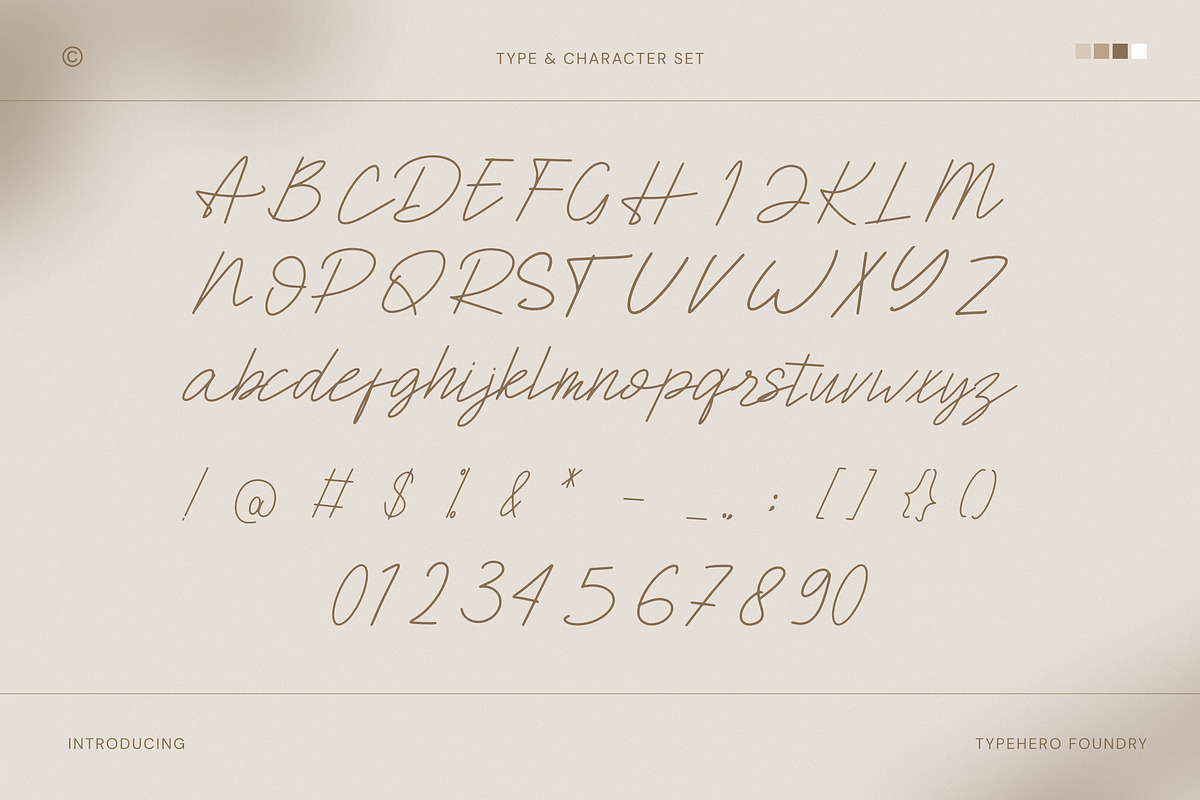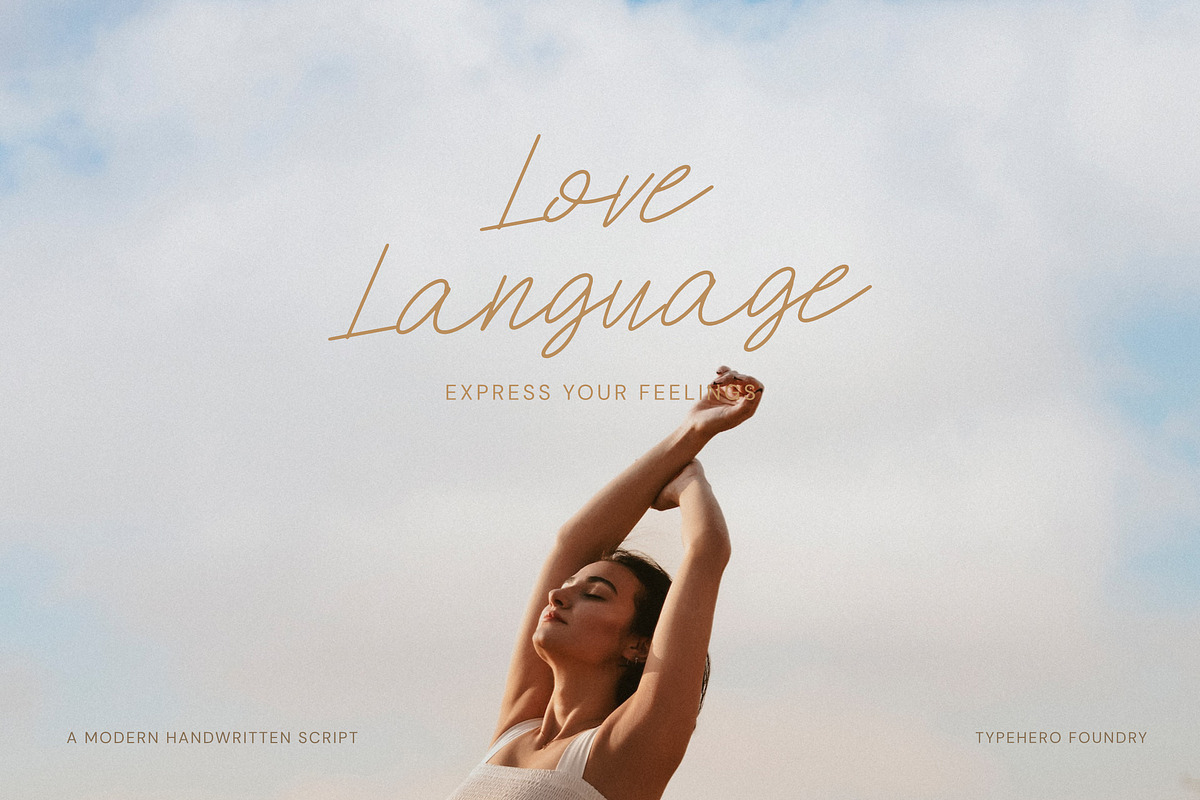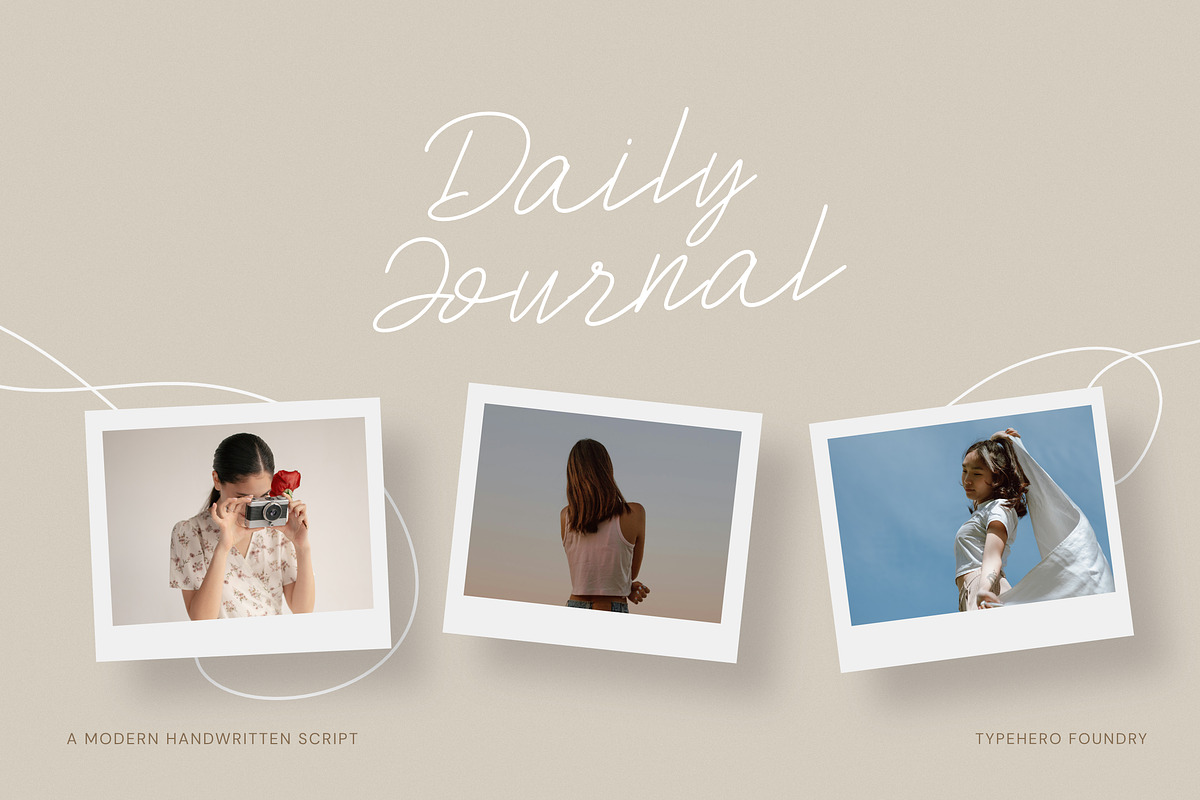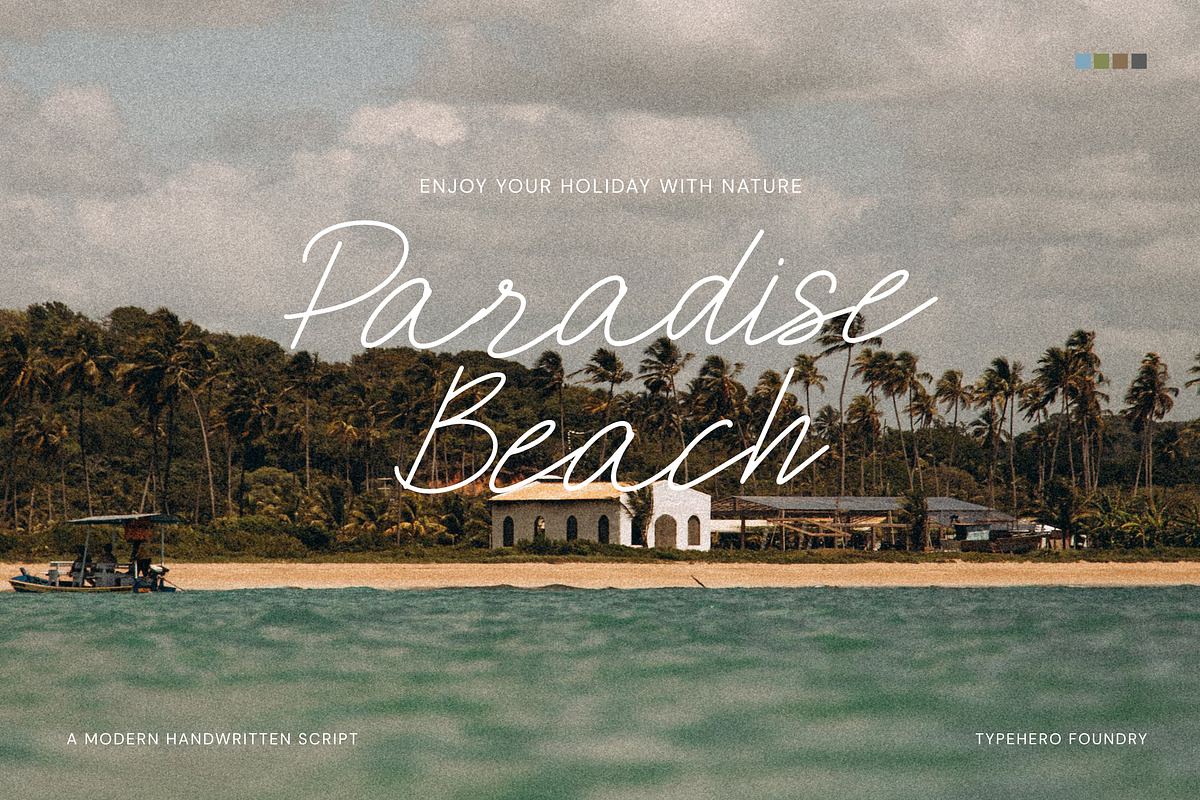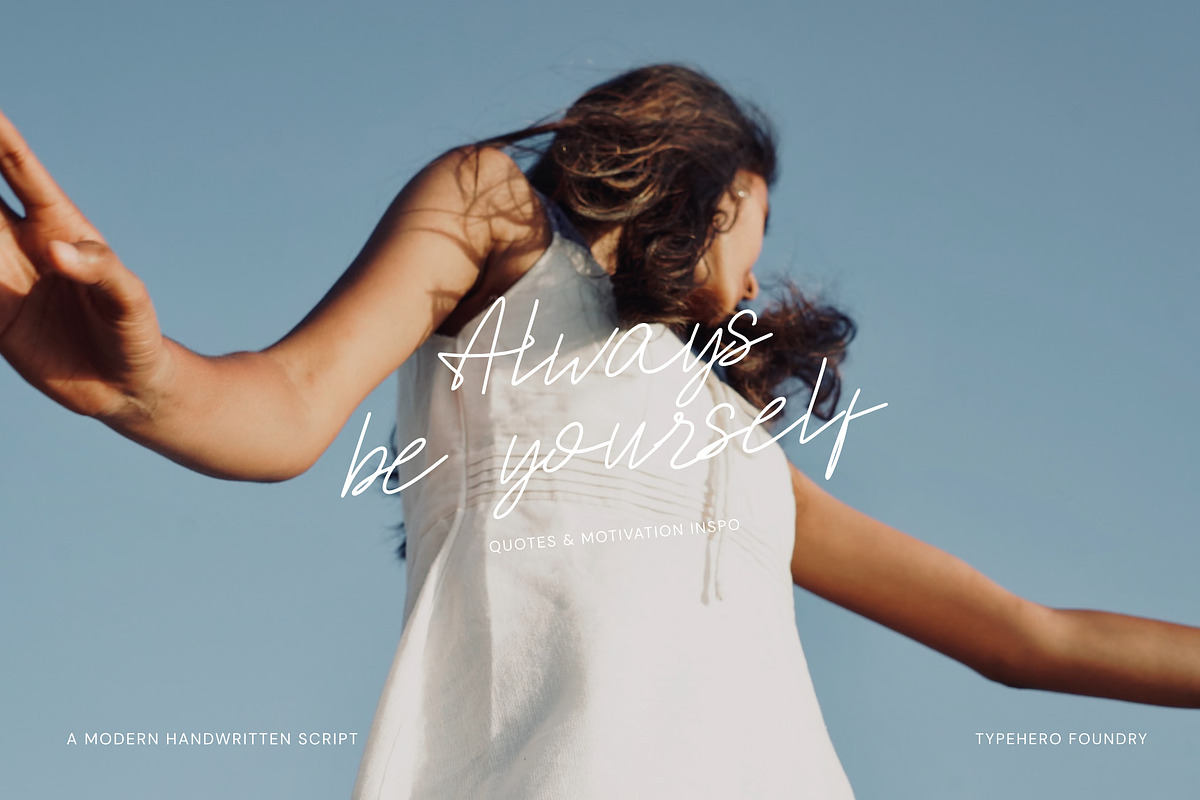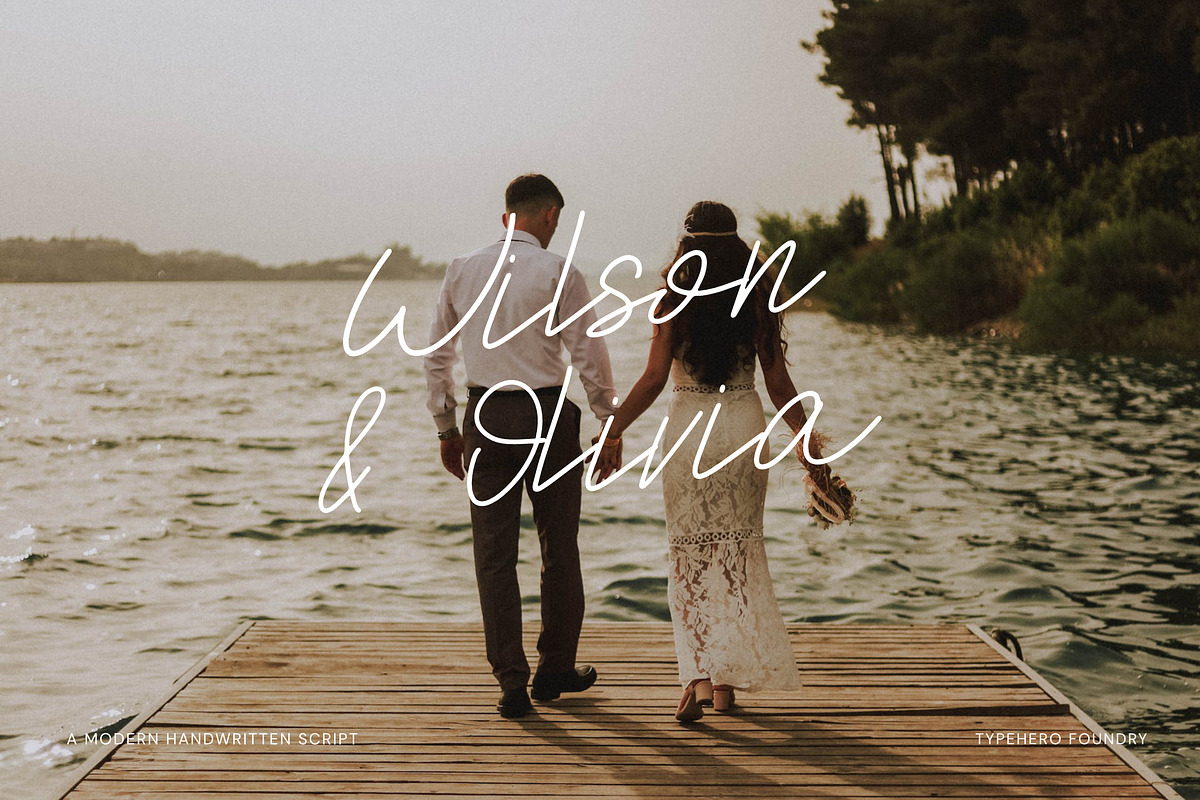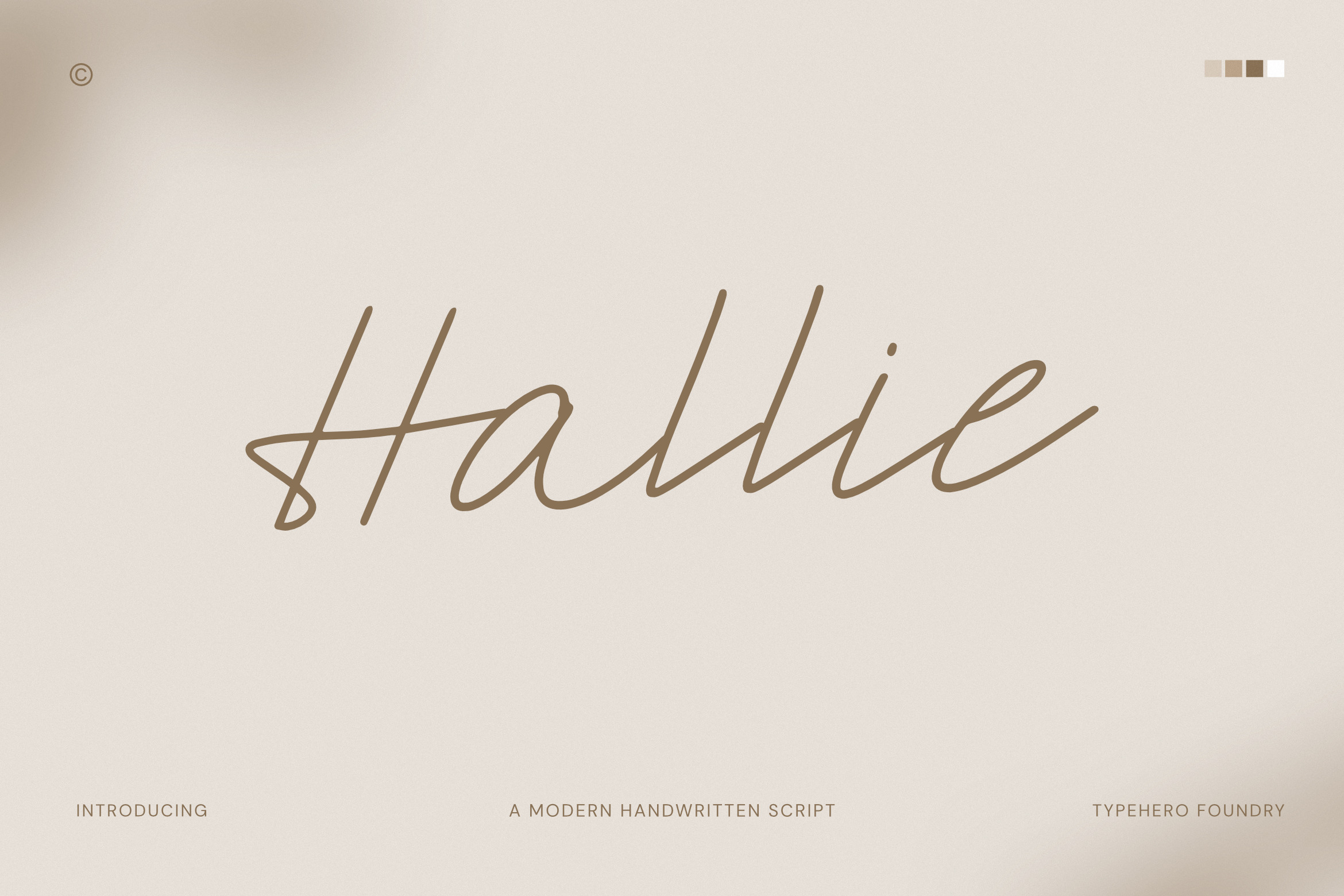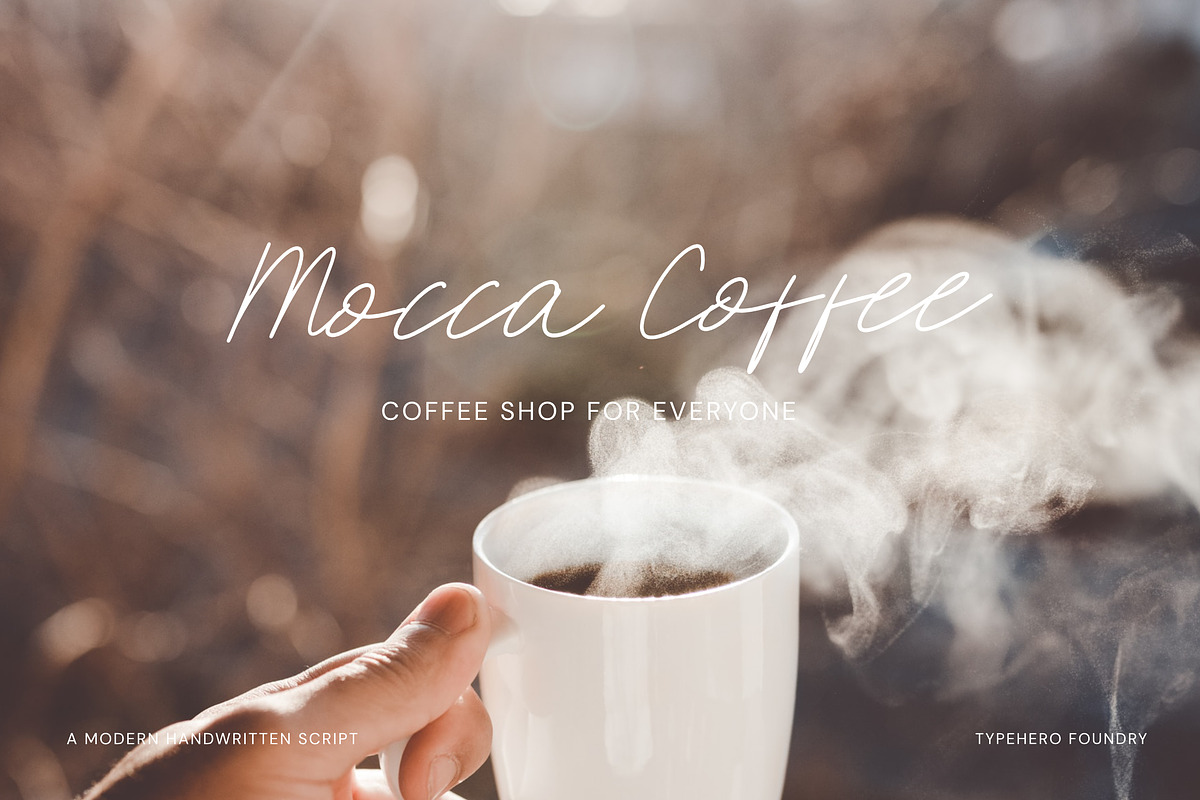
Hallie - Handwritten Script Font
Hallie is a handwritten script typeface that's perfect for your next branding project. Created with simple & elegant lines. Perfect for your next logo design project, or for creating traditional ad layouts or marketing content.